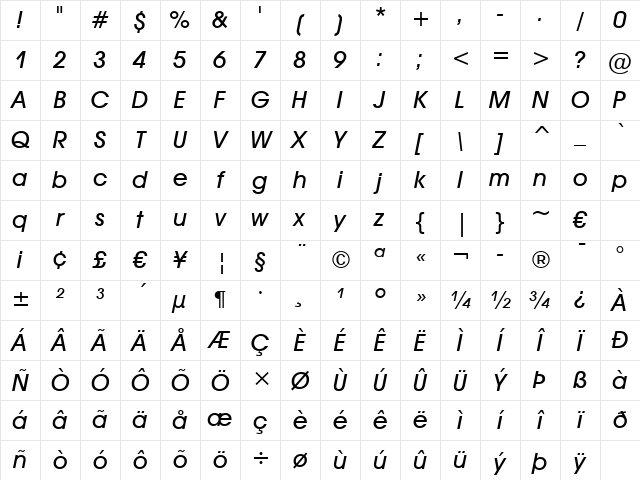
Complete AvantGarde Md BT Medium Oblique glyph index. Displaying only characters natively supported by AvantGarde Md BT Medium Oblique font.
AvantGarde Md BT is a composed and adaptable typeface that performs quietly and consistently across a wide range of design contexts. The slanted form adds forward momentum and visual energy.